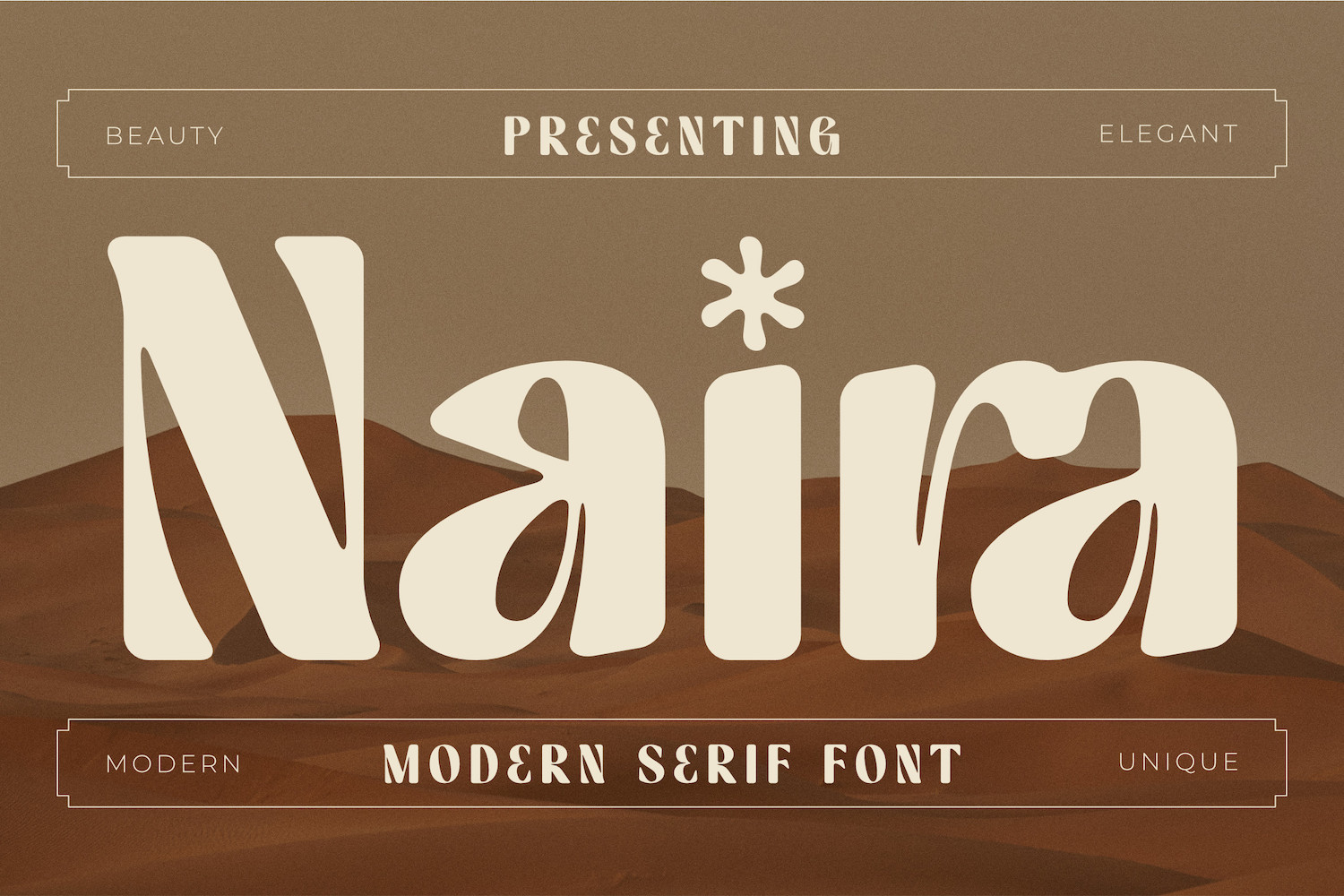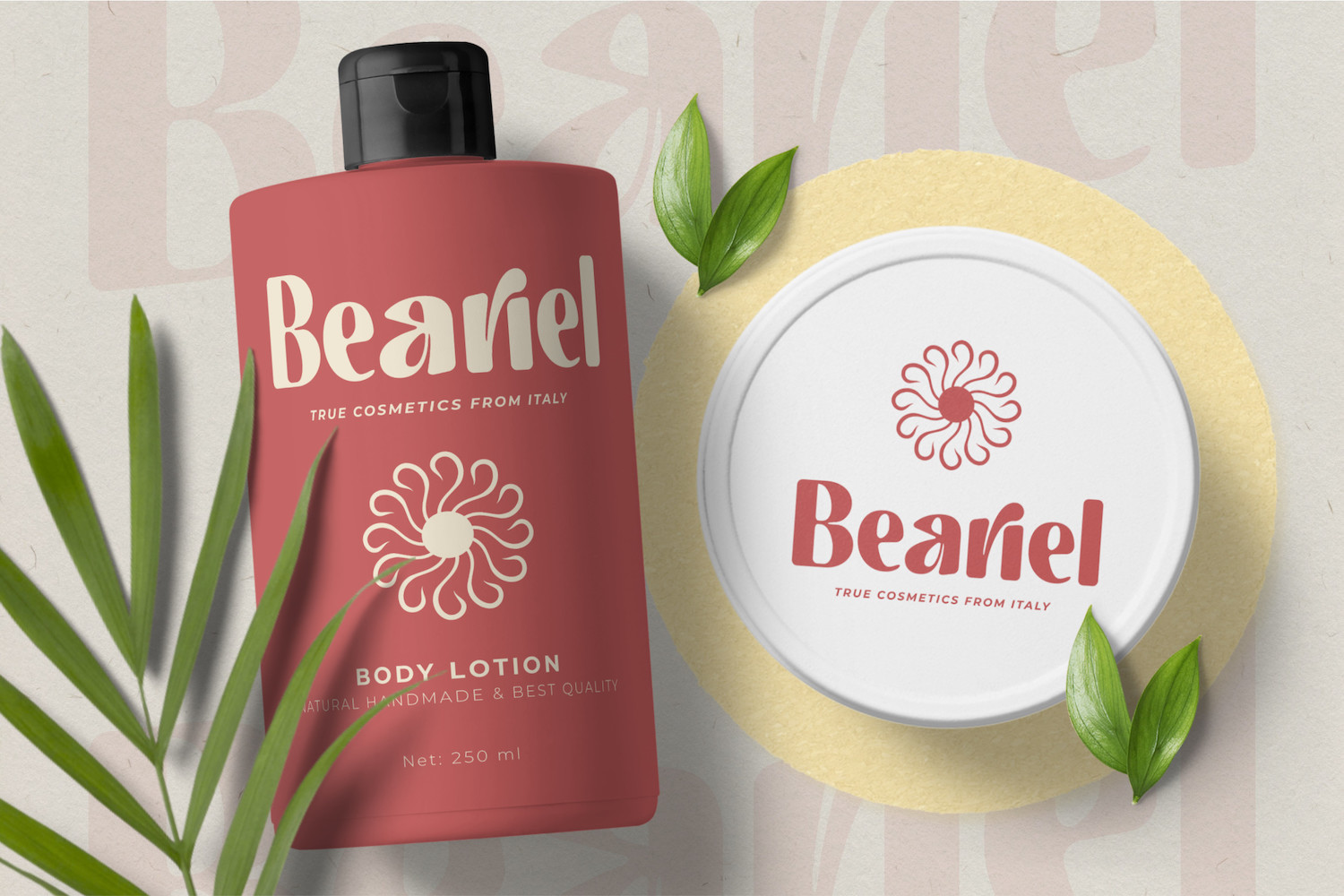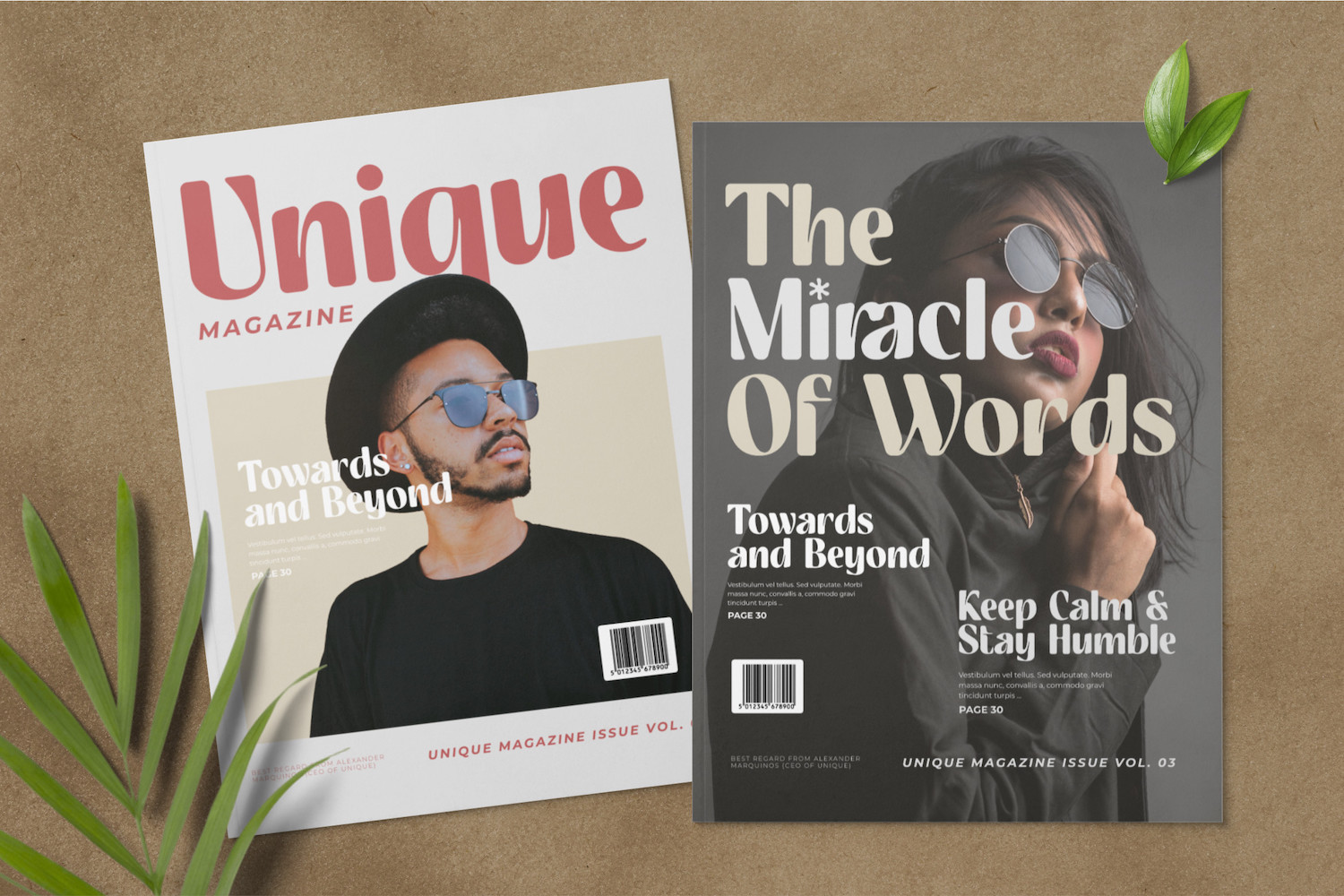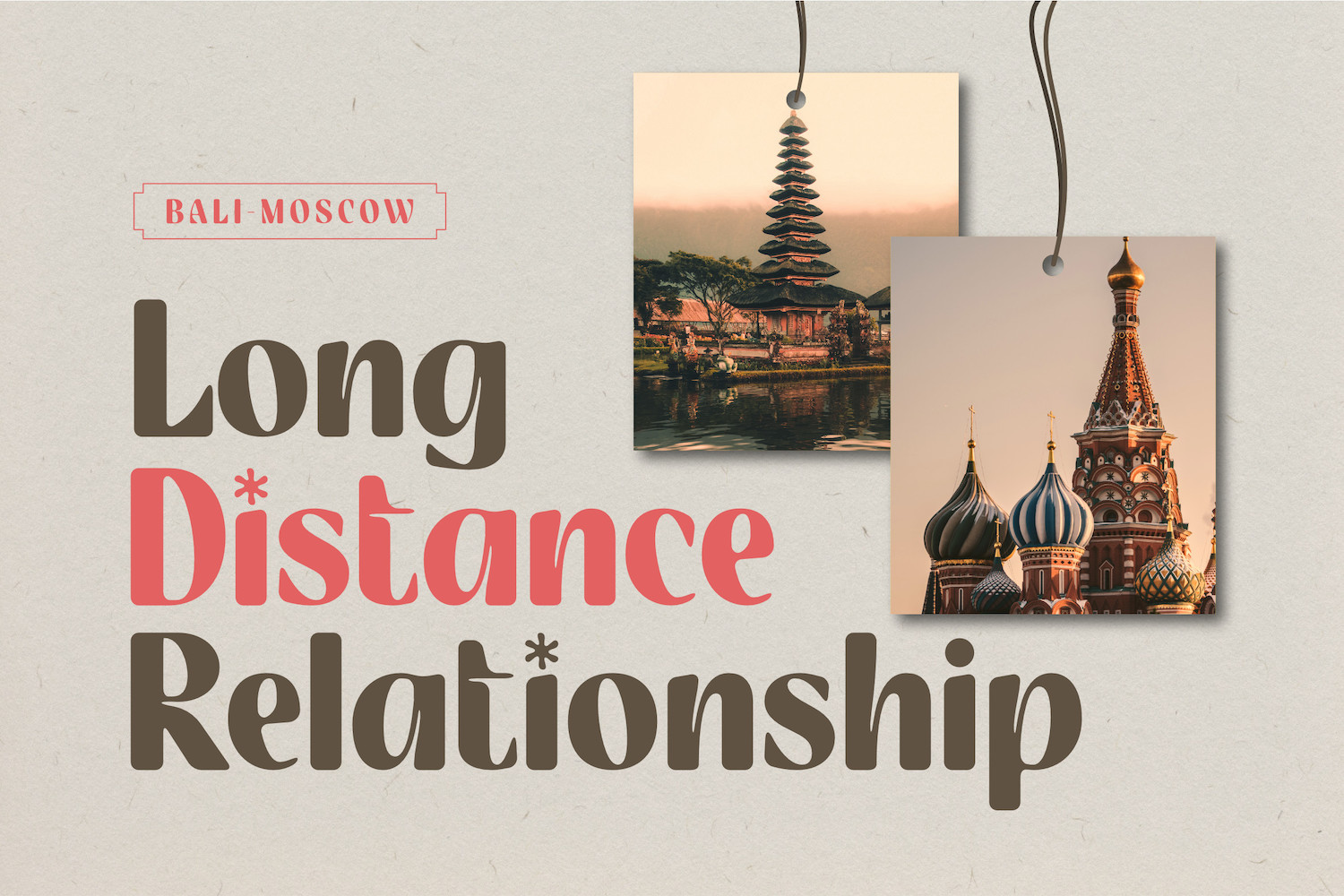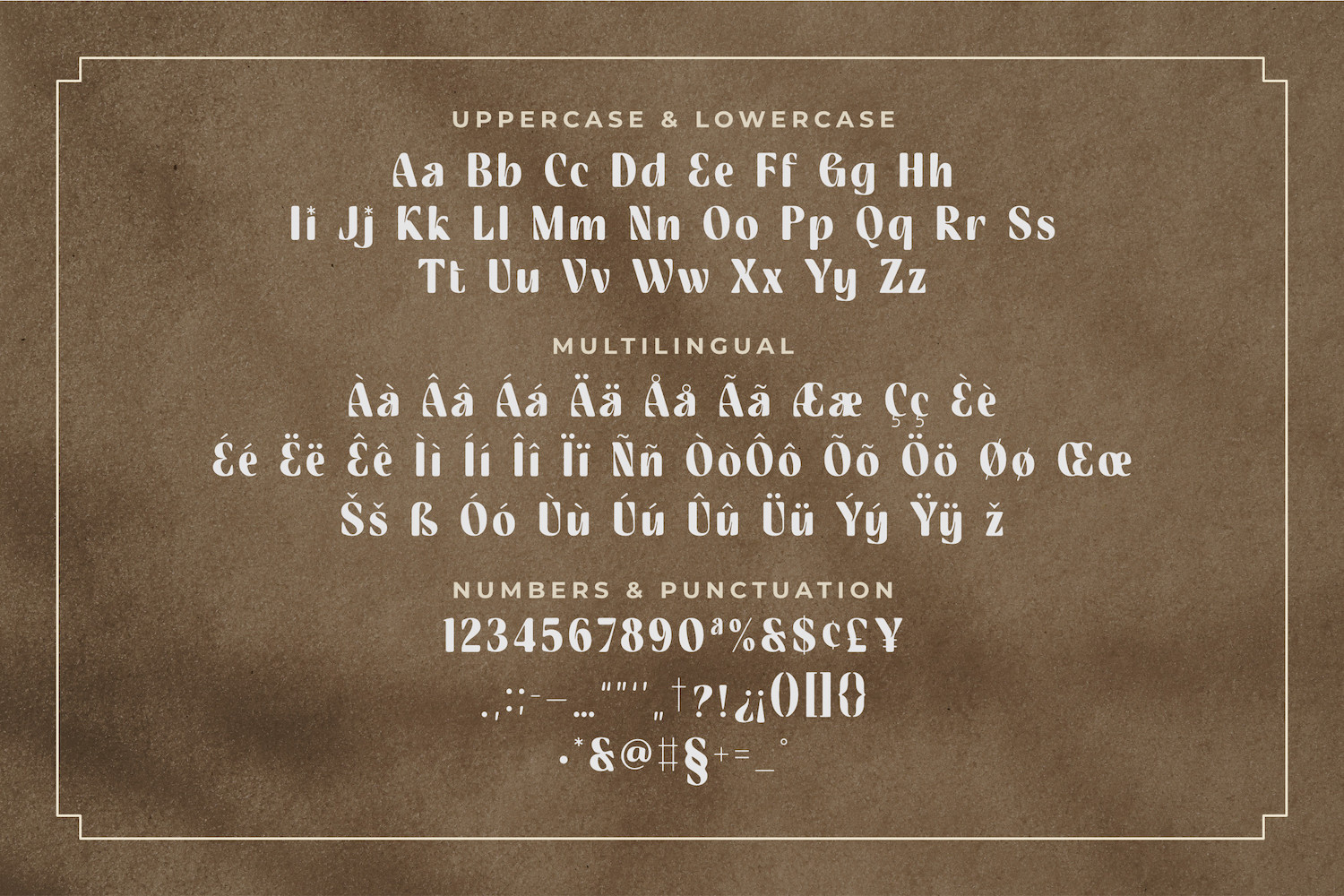
Naira is a playful and stylish serif font that stands out with its quirky curves and bold personality. Its unique character shapes, combined with subtle retro touches, give it a distinctive charm perfect for branding, cosmetics, fashion magazines, or editorial design. The combination of wide counters and high contrast strokes makes Naira readable while maintaining its decorative flair.
With multilingual support and a full range of uppercase, lowercase, numbers, and punctuation, Naira is crafted for creative versatility. Whether you’re designing product packaging, headlines, or editorial layouts, this font adds an expressive and fun aesthetic to your project, capturing attention with every letter.
Naira